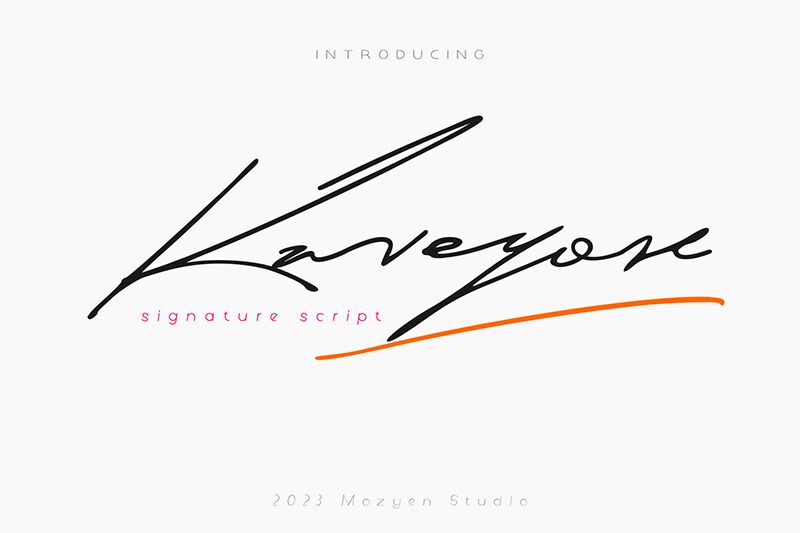
Kaveyore font by Mozyen Studio is a sophisticated handwritten font with a light weight. The characters connect seamlessly, resulting in a smooth flow that’s pleasant to the eye as well as easy to read. This is coupled with an elegant style and modern aesthetic that gives this resource its seductive and all-encompassing effect.
Kaveyore is perfect for personal touch projects where uniqueness is required such as wedding invitations, signatures, product packaging, business cards, magazines headlines, posters/flyers titles, fashion branding projects and websites/blogs design when used in conjunction with available web fonts.